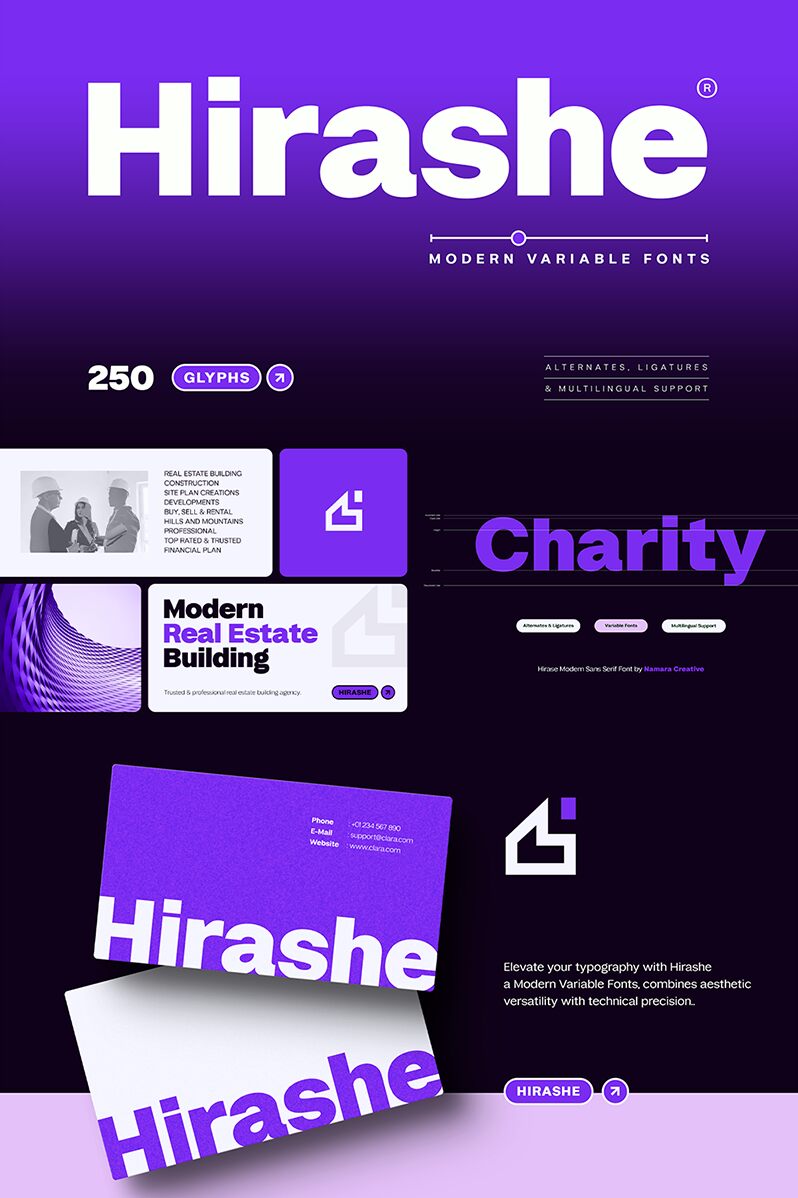
Hirashe font by Namara Creative is a free font that focuses on a clean and simple style. This modern typeface gives off a powerful and professional tone that is suitable for corporate organizations. Its letters are readable from afar and deliver an impactful yet straightforward message that does not confuse or distract the audience. The font is best used in large sizes such as for titles and headers.
Hirashe is an adaptable font for digital and print designs that adds a sophisticated and contemporary combination. You can use it for a mobile or web application, a logo, poster, brochure, social media post, branding design, a film title, or an editorial design. Another great idea is to enjoy designing a business or invitation card with it.
Elevate your typography with Modern Variable Fonts, which combine aesthetic versatility with technical precision. This font family redefines flexibility for modern digital and print projects.